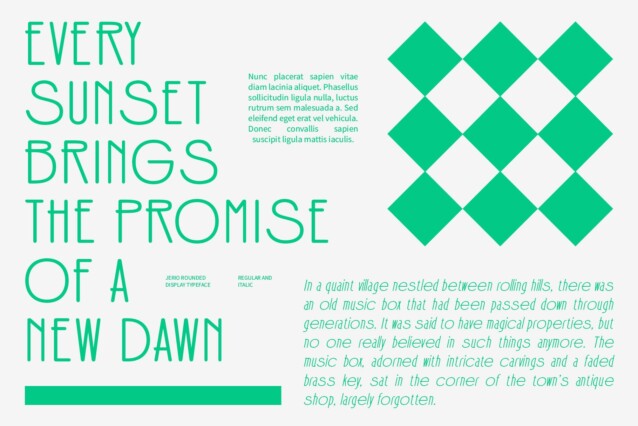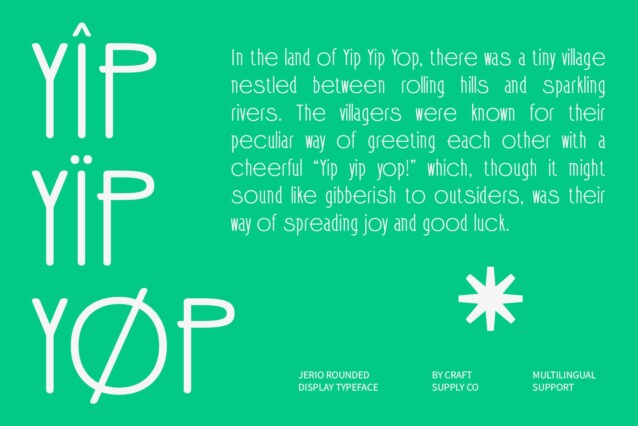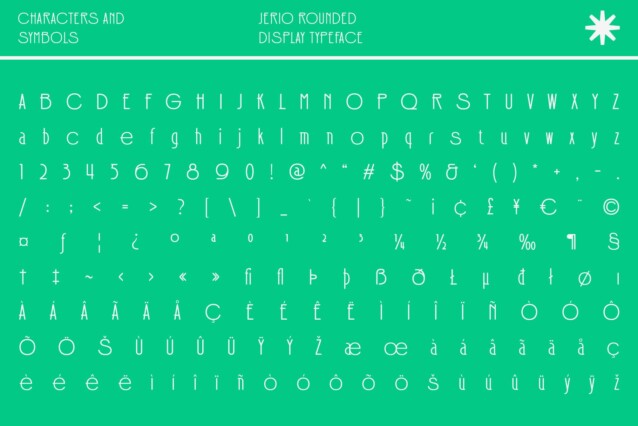
Jerio Rounded Font
Jerio Rounded Font is a contemporary sans-serif font that exudes elegance through its slim, minimalist design. Characterized by its sleek, slender forms, the font offers a refined and space-efficient appearance that enhances readability while maintaining a clean, uncluttered look.